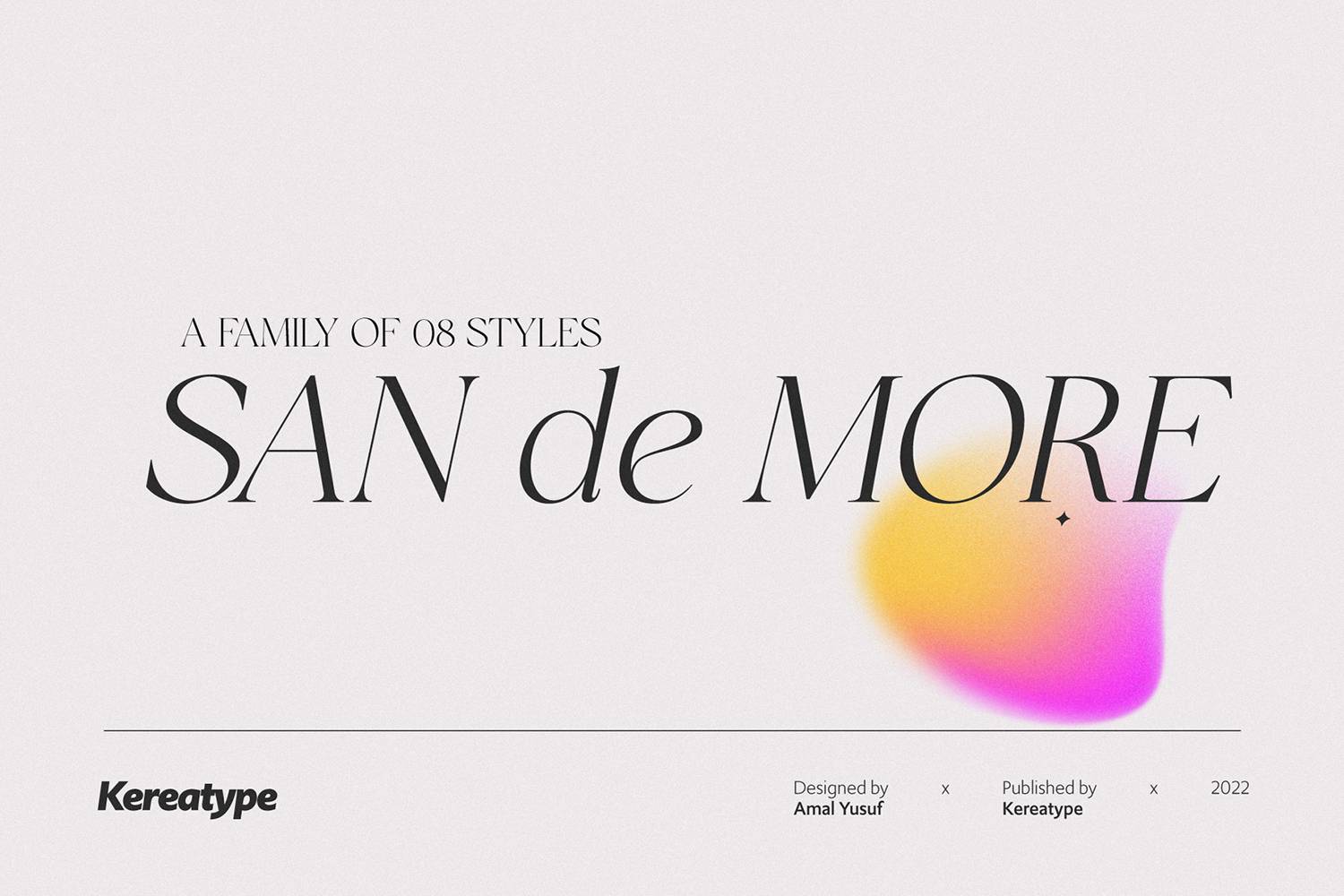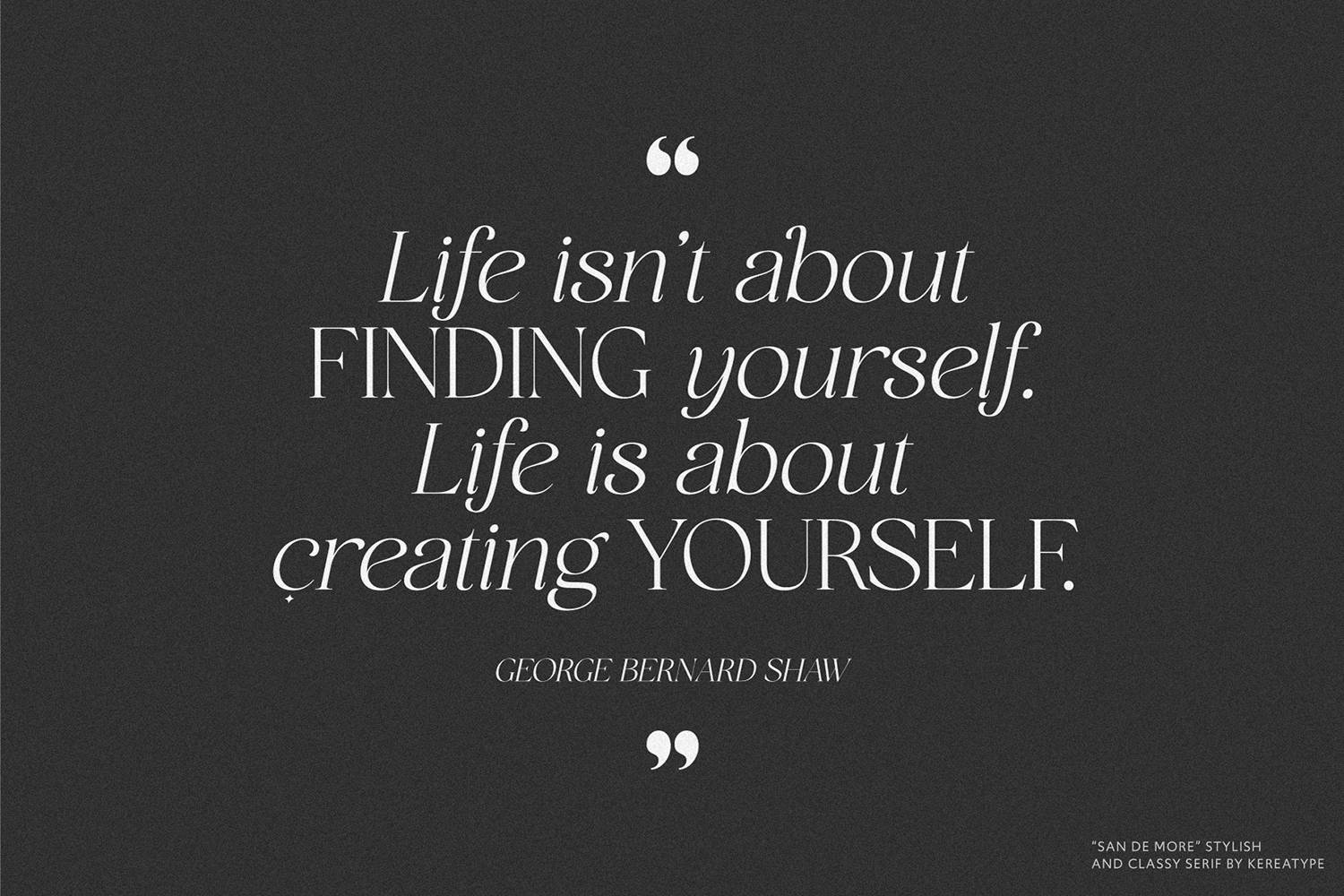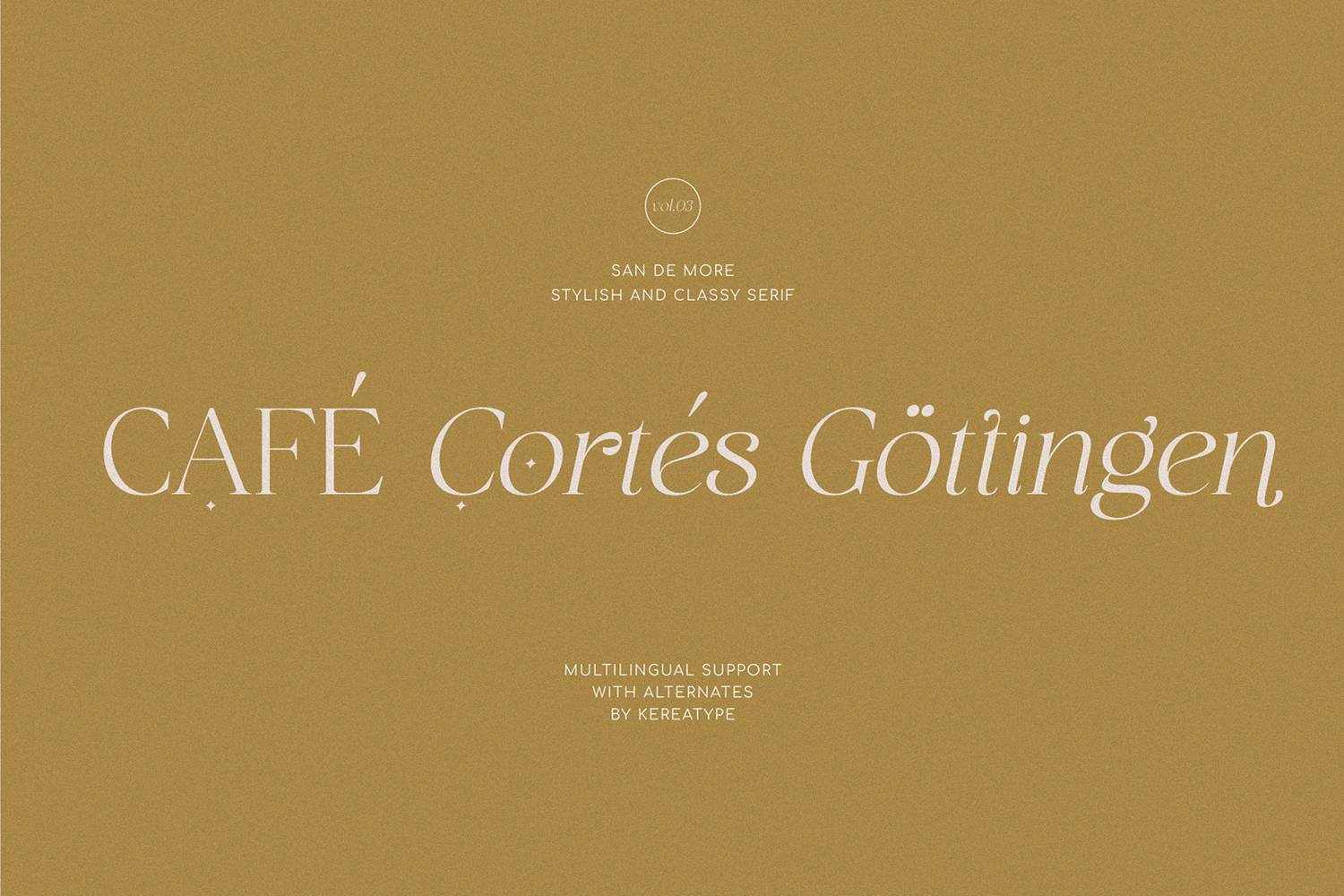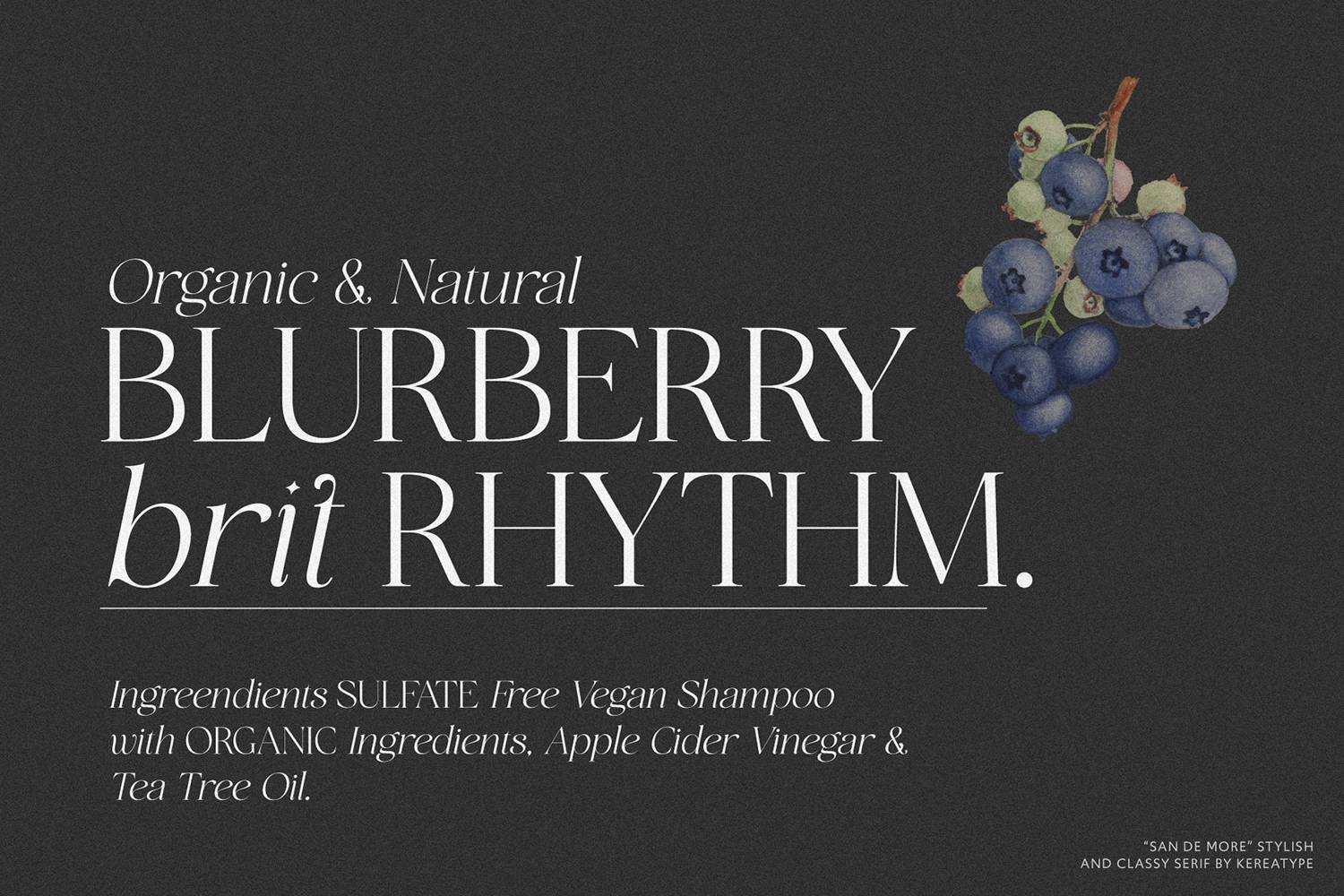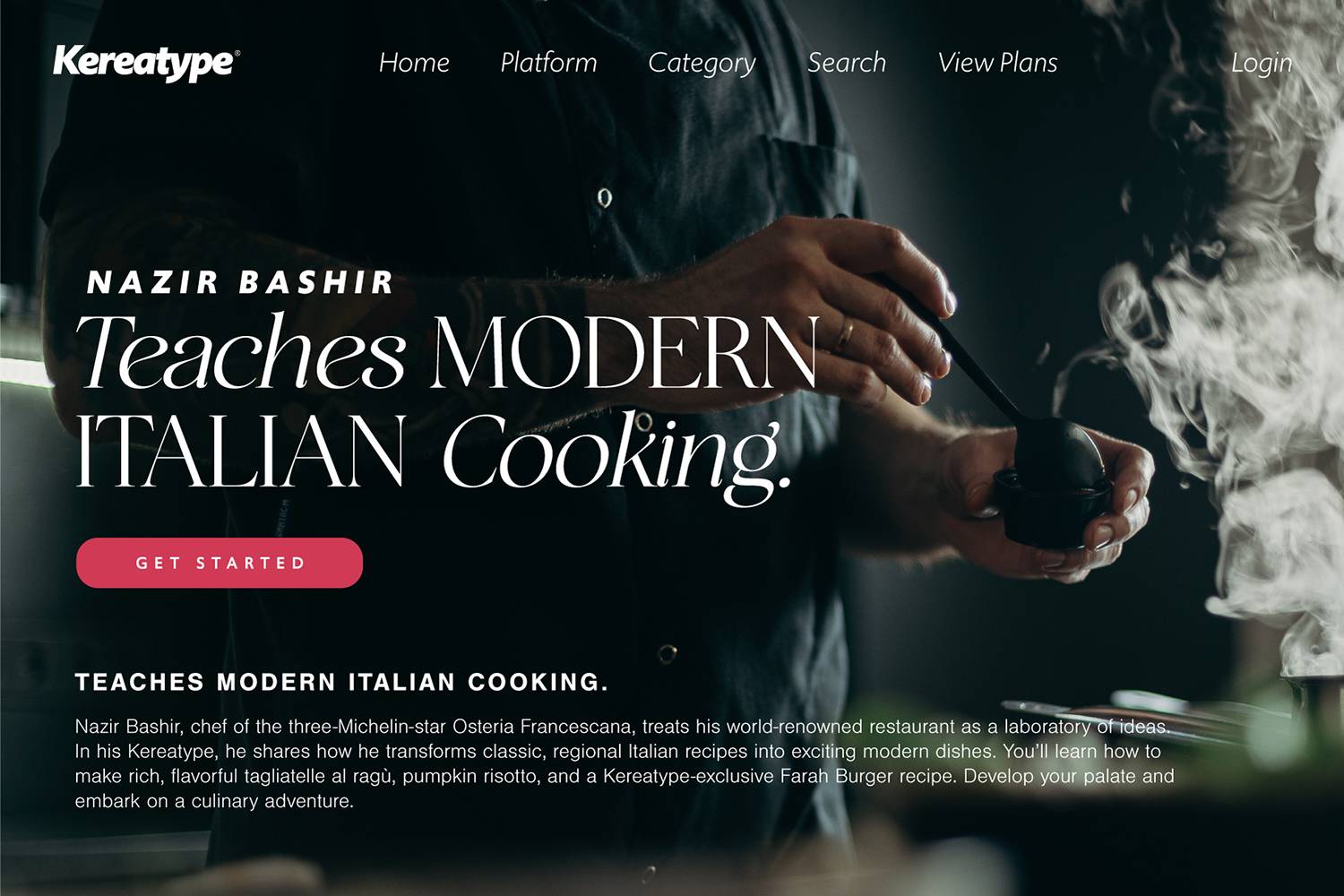
San de More is an elegant serif font with a refined high-contrast design, featuring delicate, tapered strokes and graceful bracketed serifs. Its slender, slightly condensed letterforms and unique details, such as the distinctive double-story "g" and the stylishly curved "Q" tail, give it a sophisticated and modern yet classic feel, perfect for luxury branding, editorial headlines, and fashion packaging. This font’s refined personality and airy spacing make it ideal for projects that require a touch of elegance and timeless charm.
San de More Font
About San de More Font
| Font family | San de More Font |
| Designer | Amal Yusuf |